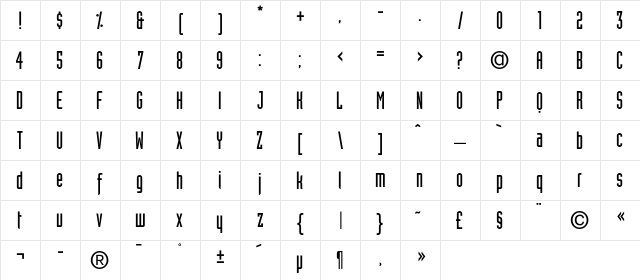
IndustryTMC Regular
Design Context for IndustryTMC Typeface
IndustryTMC offers clean, dependable letterforms without strong stylistic allegiance, making it a practical choice for designers who need flexibility.